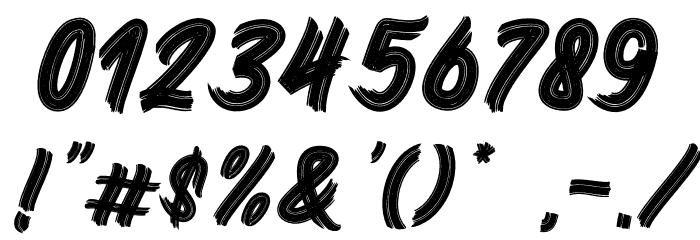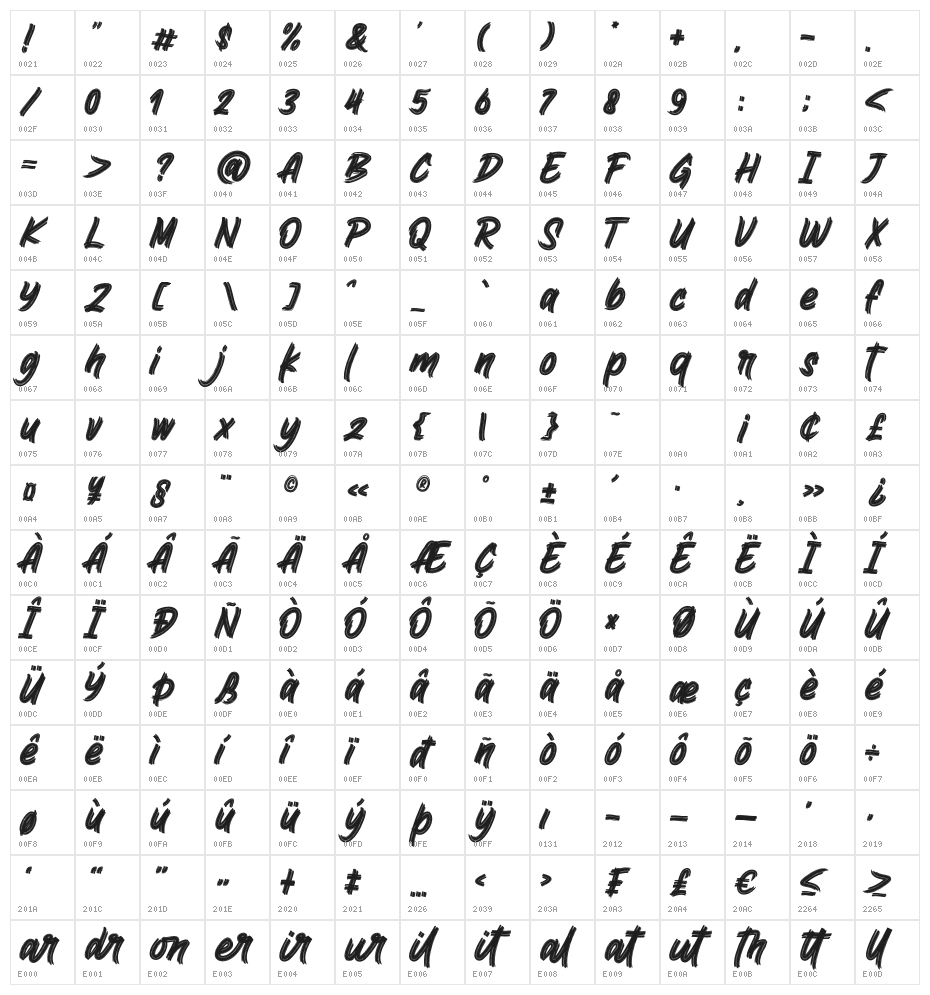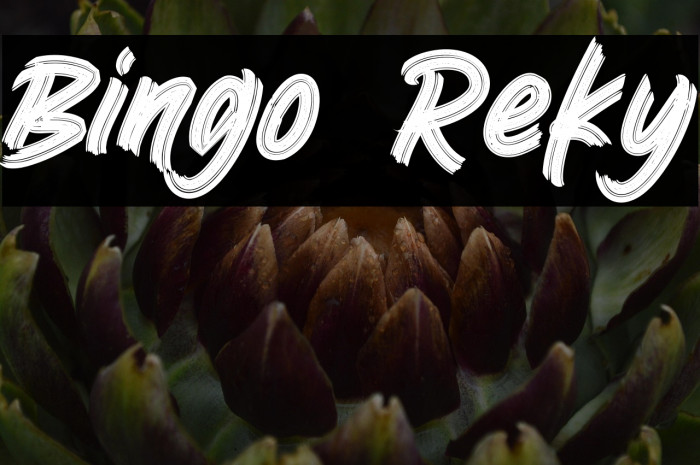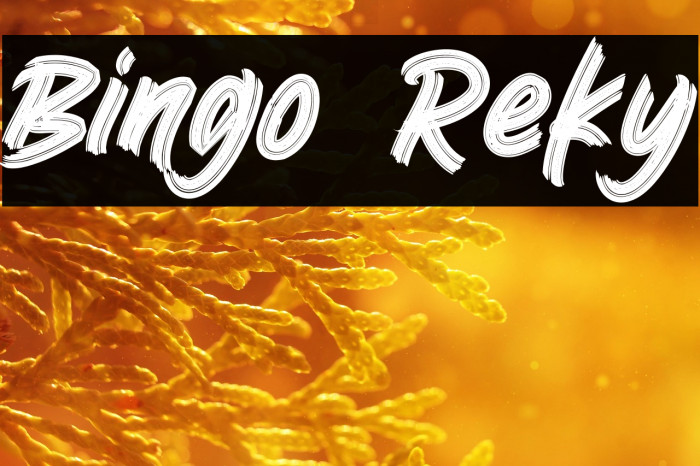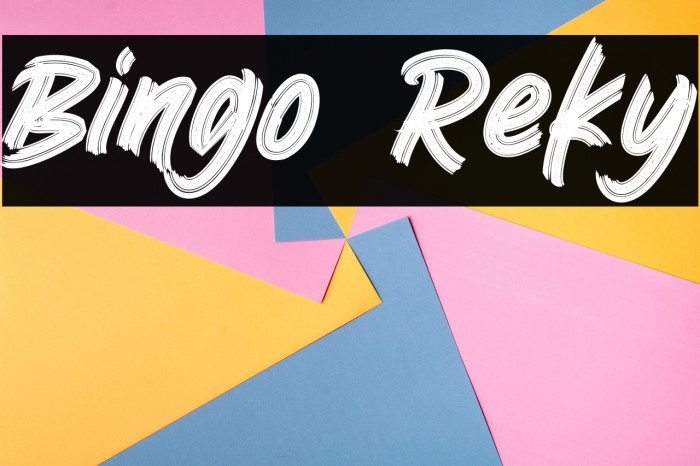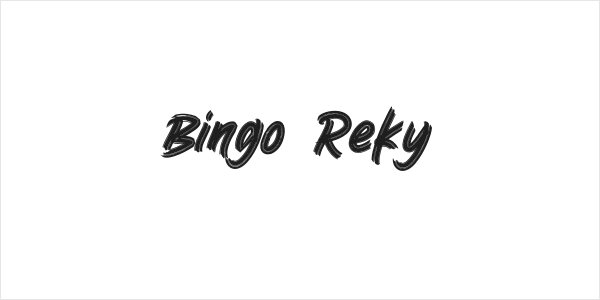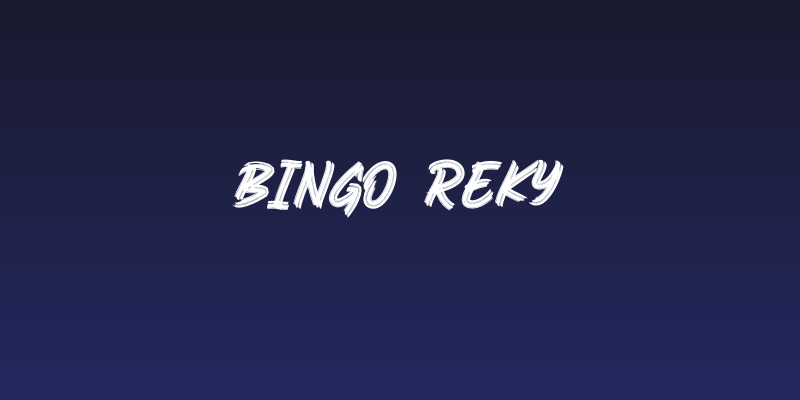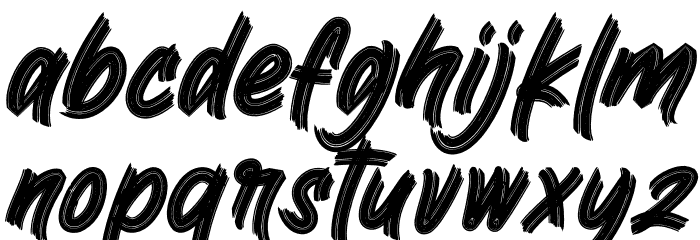
Bingo Reky Font
Bingo Reky Description
This font features a bold, energetic brush style that exudes a sense of movement and dynamism. The strokes are thick and expressive, with a rough, hand-painted texture that gives it a raw and artistic feel. Each character is uniquely crafted, maintaining a consistent flow and rhythm throughout the alphabet. The uppercase letters are bold and commanding, while the lowercase letters retain a playful and approachable demeanor. Numbers and special characters are equally expressive, making this font versatile for various creative applications.